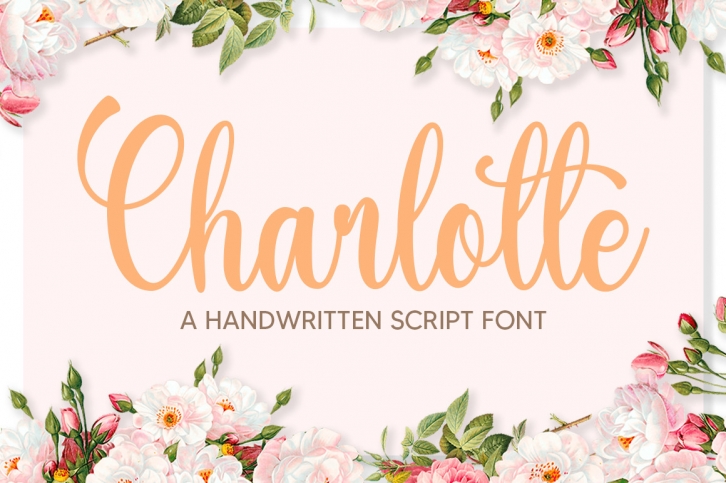
Charlotte is a refined and elegant handwritten font. Dainty and joyful, this font will be ideal for writing wedding invitations, cards or any other design that may need a romantic, personalized touch!